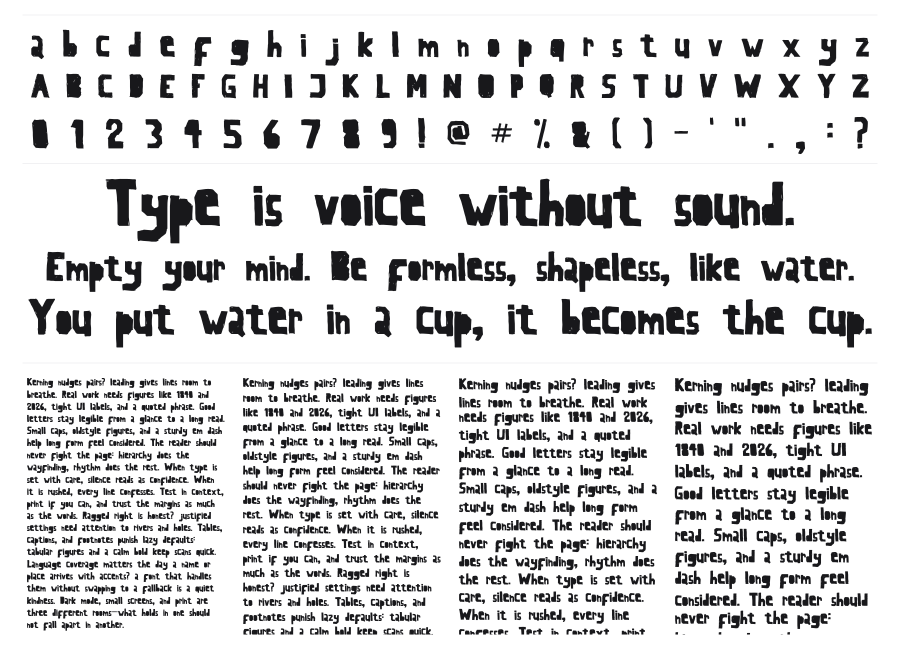
La Segunda
La Segunda is a heavy, textured display face by Matias Demti with bold letterforms that look like they've been printed on rough stock and left to weather. The distressed edges and gritty surface give every character a raw, physical quality that feels more like ink on concrete than pixels on a screen. Built for headlines, posters, and branding where you want type that carries some real wear and weight.